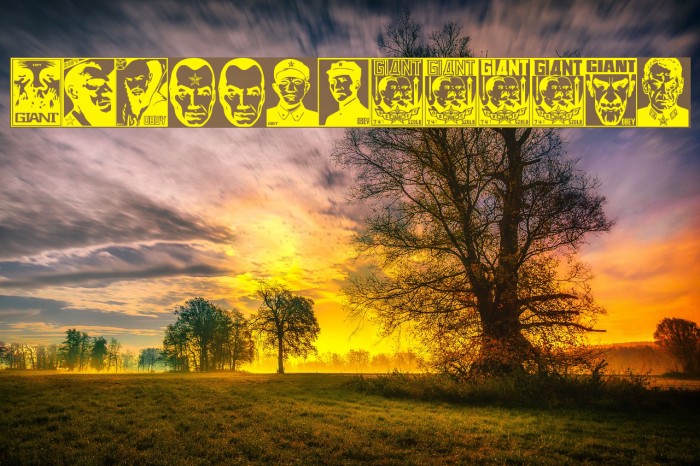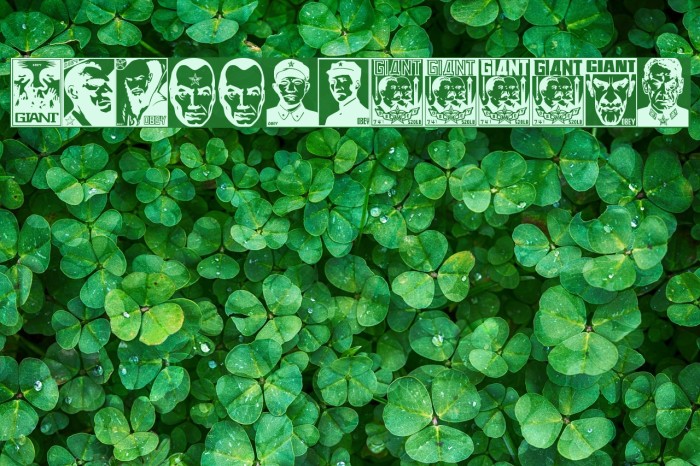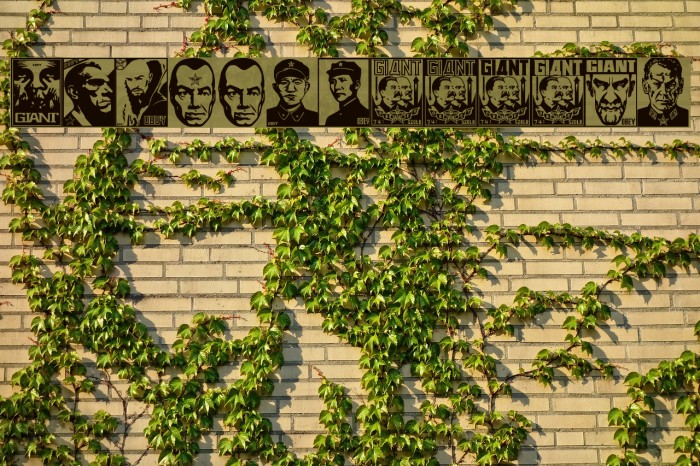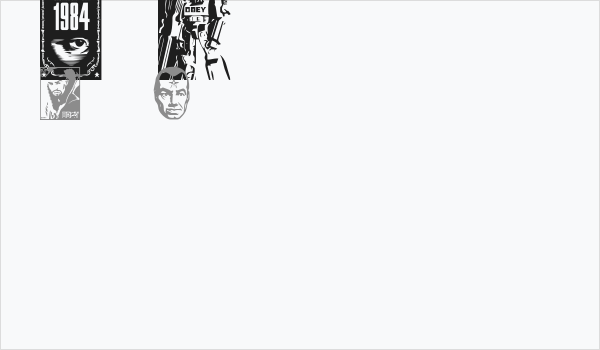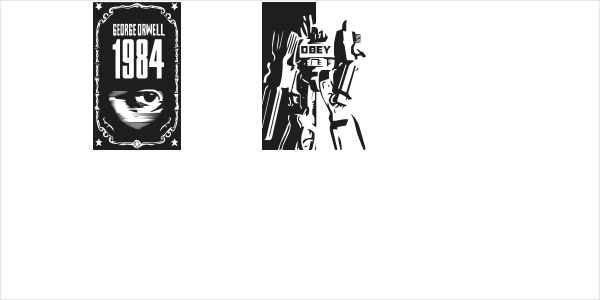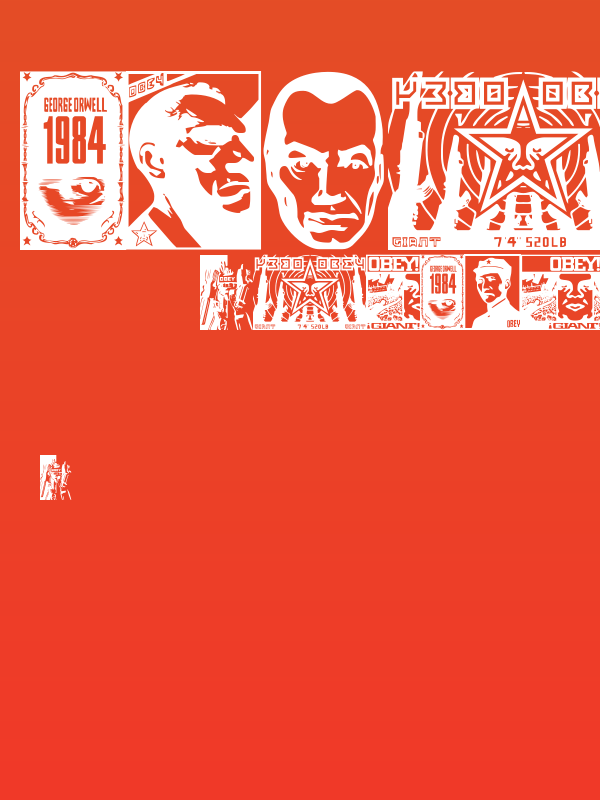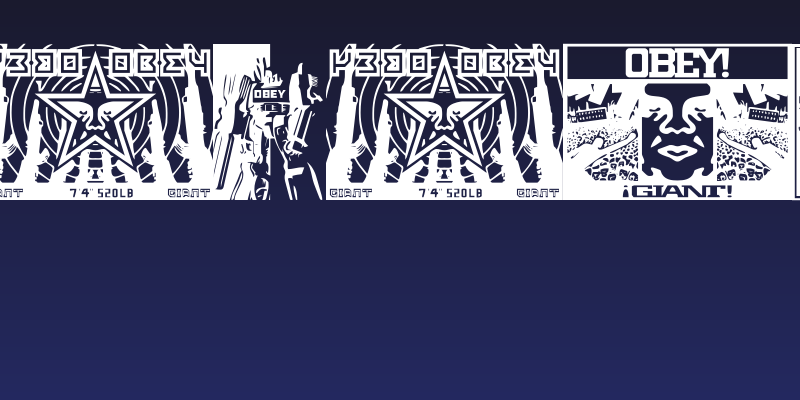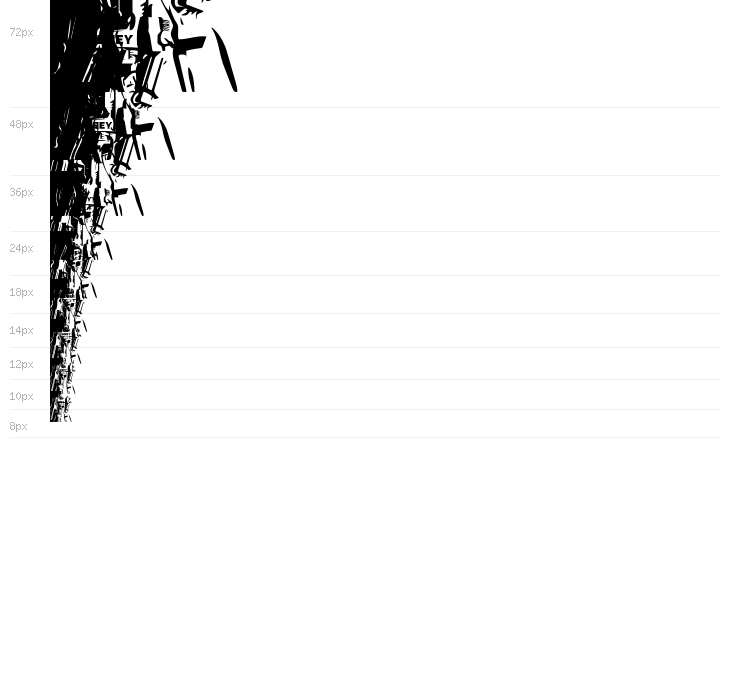
ObeyTyrant Font
ObeyTyrant Description
This is not a valid font. The image appears to be a collection of graphic designs or illustrations rather than a traditional font set. It includes various artistic elements and imagery that do not correspond to standard alphanumeric characters or symbols typically found in a font.